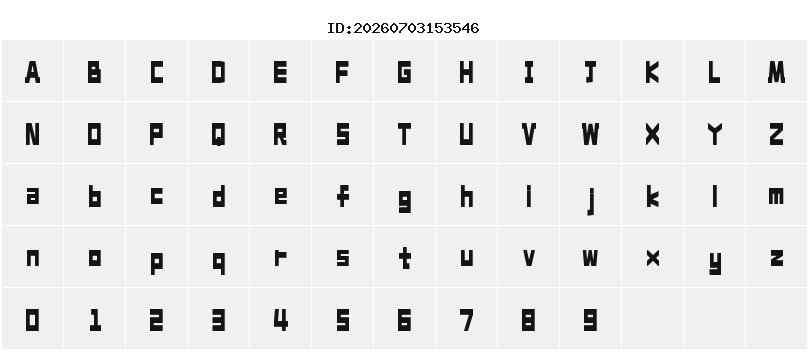
237-上首木鱼体 Preview
• Font Name: 237-上首木鱼体
• Font ID: 237-SSMuYu Ti:Version 5.00
• Full Font Name: 237-上首木鱼体
• Manufacturer: 上首造字
About 237-上首木鱼体.ttf
237-上首木鱼体.ttf is a modern, elegant sans-serif font designed for ultimate readability and visual harmony. Perfect for branding, headlines, web design, and print materials.